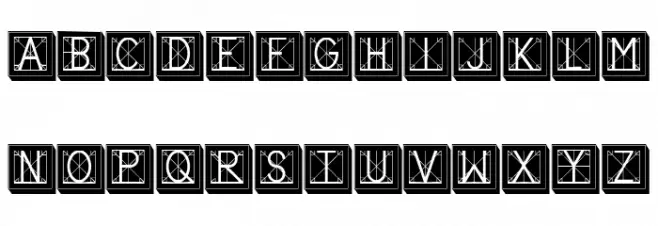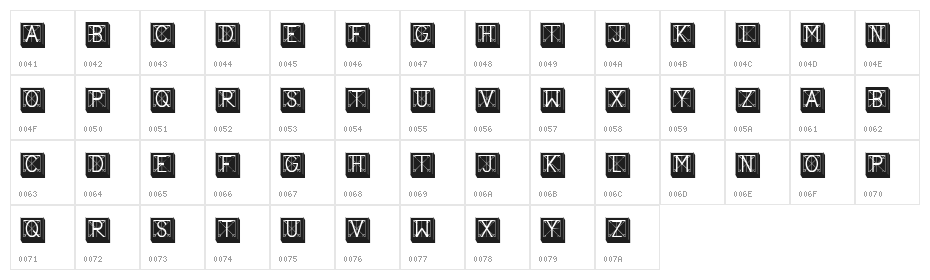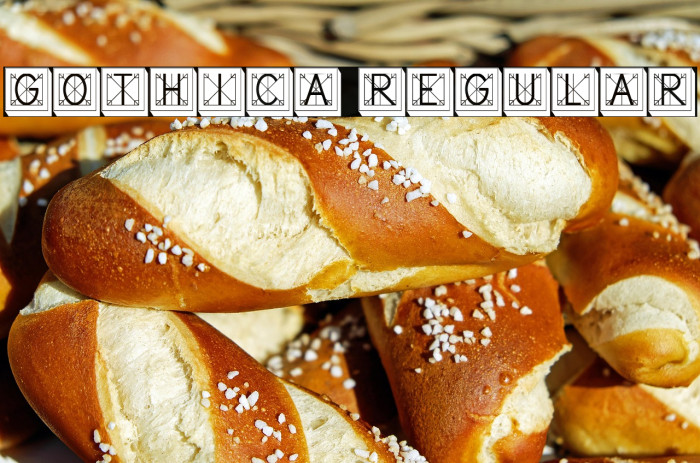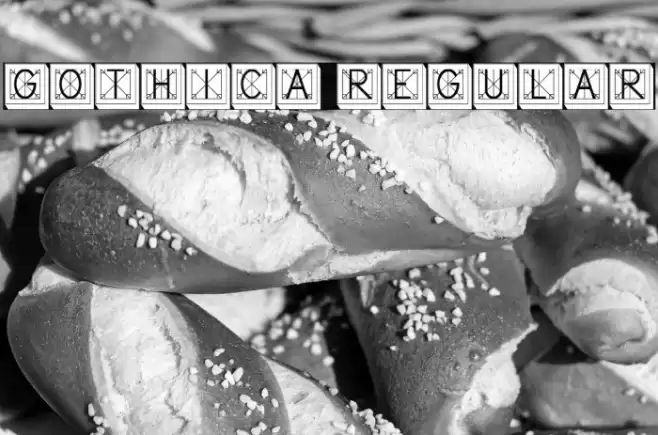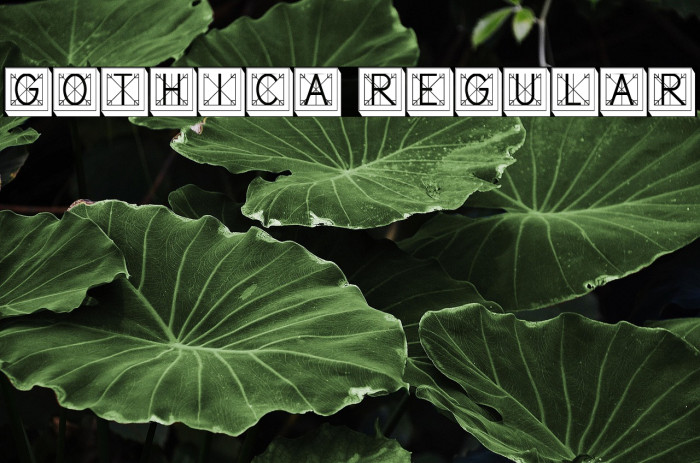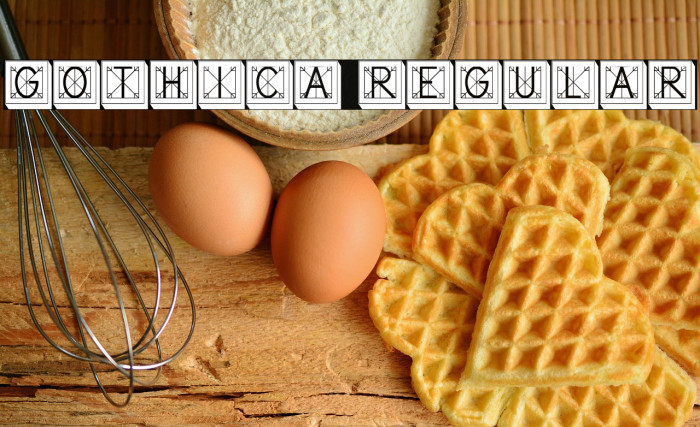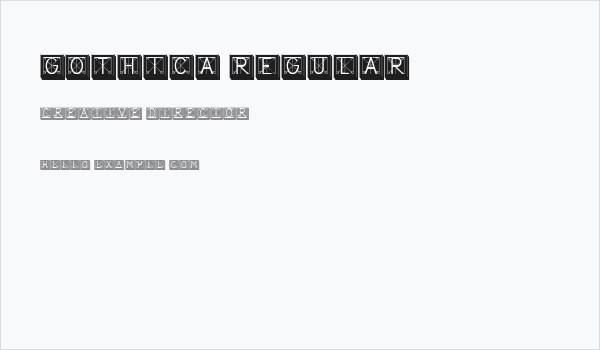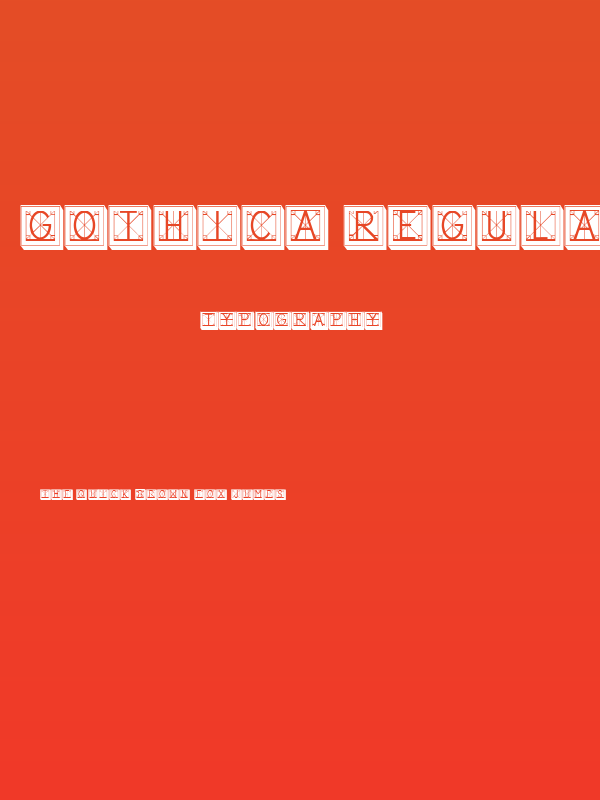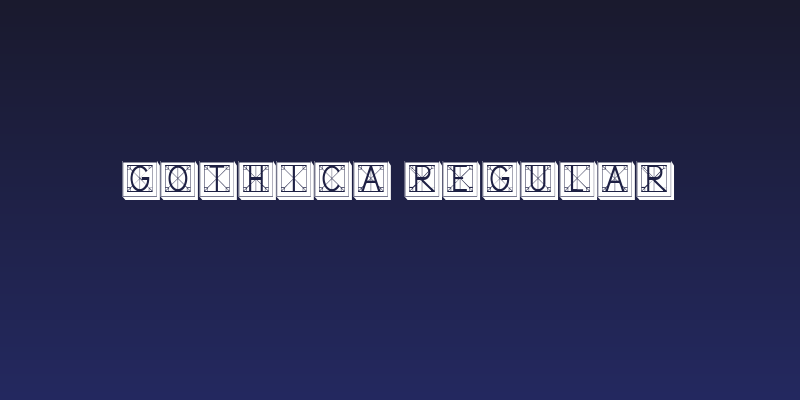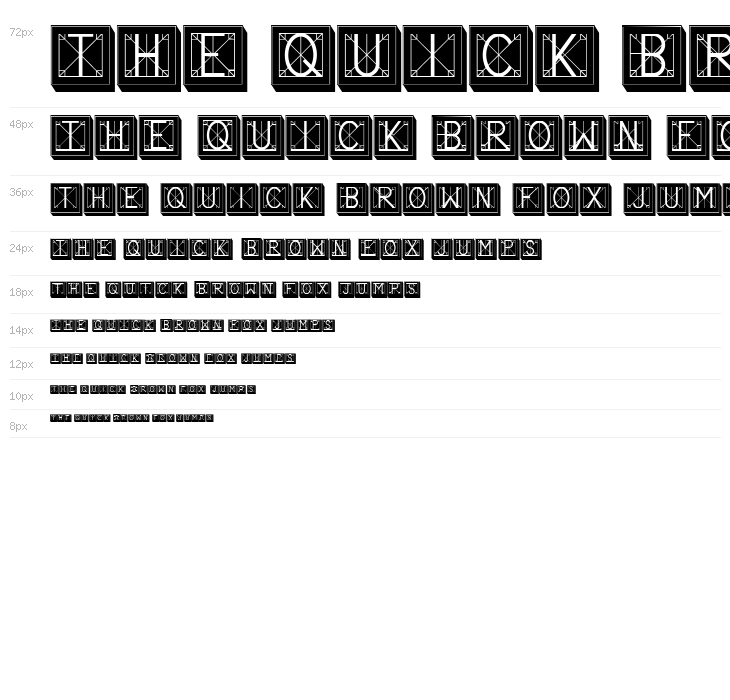
Gothica Regular Font
Gothica Regular Description
This font features a unique and intricate design with a gothic-inspired aesthetic. Each character is enclosed within a square, creating a striking visual effect. The letters are constructed with a combination of bold lines and geometric shapes, giving them a structured and ornamental appearance. The overall style is decorative, with a modern twist on traditional gothic elements. The font is highly detailed, making it suitable for projects that require a strong visual impact. Its distinctive style makes it ideal for use in creative and artistic contexts, where the font itself becomes a focal point.
| Proposed Projects | Ideal for posters, album covers, branding, and any project needing a bold, artistic statement. |